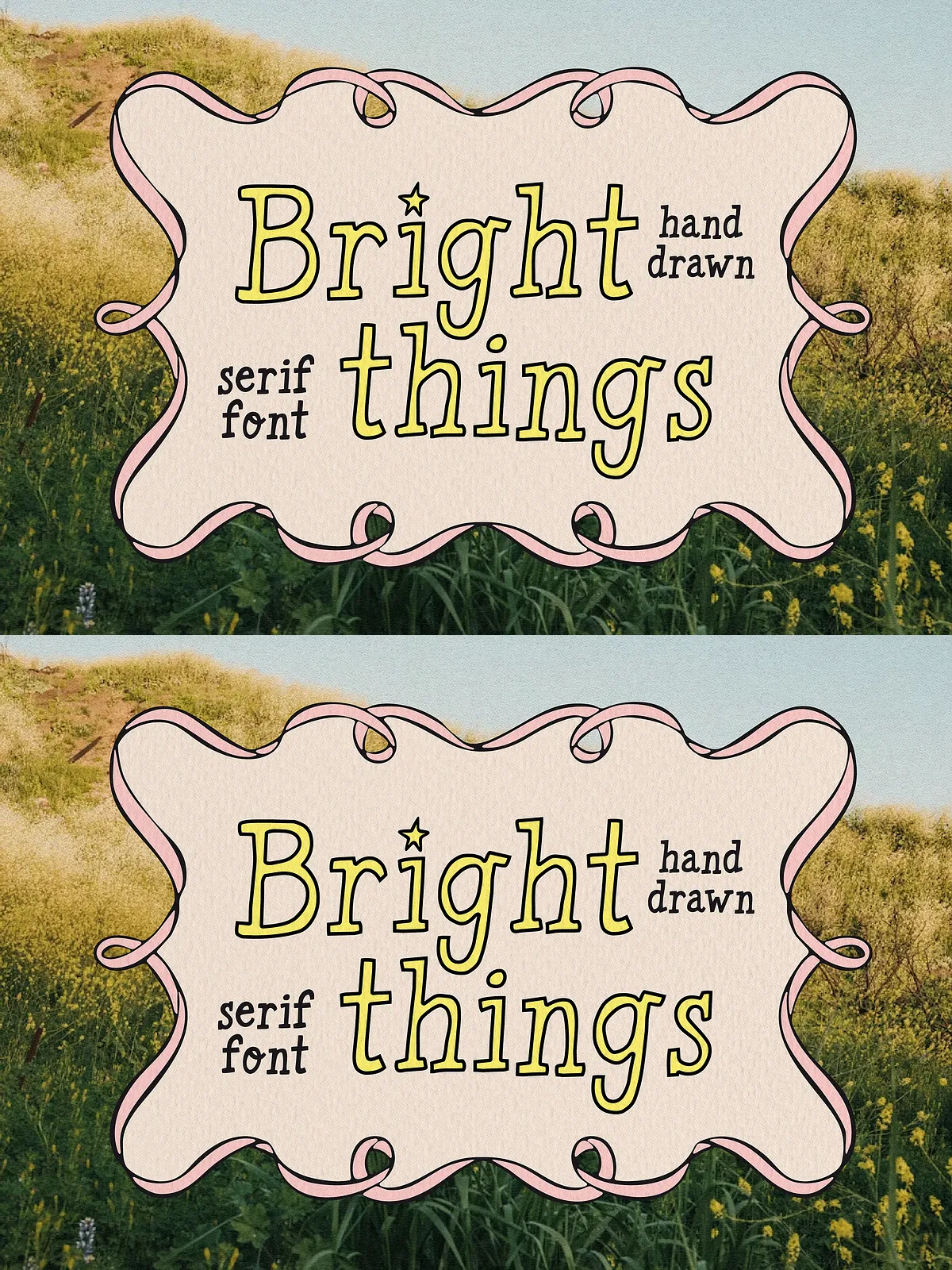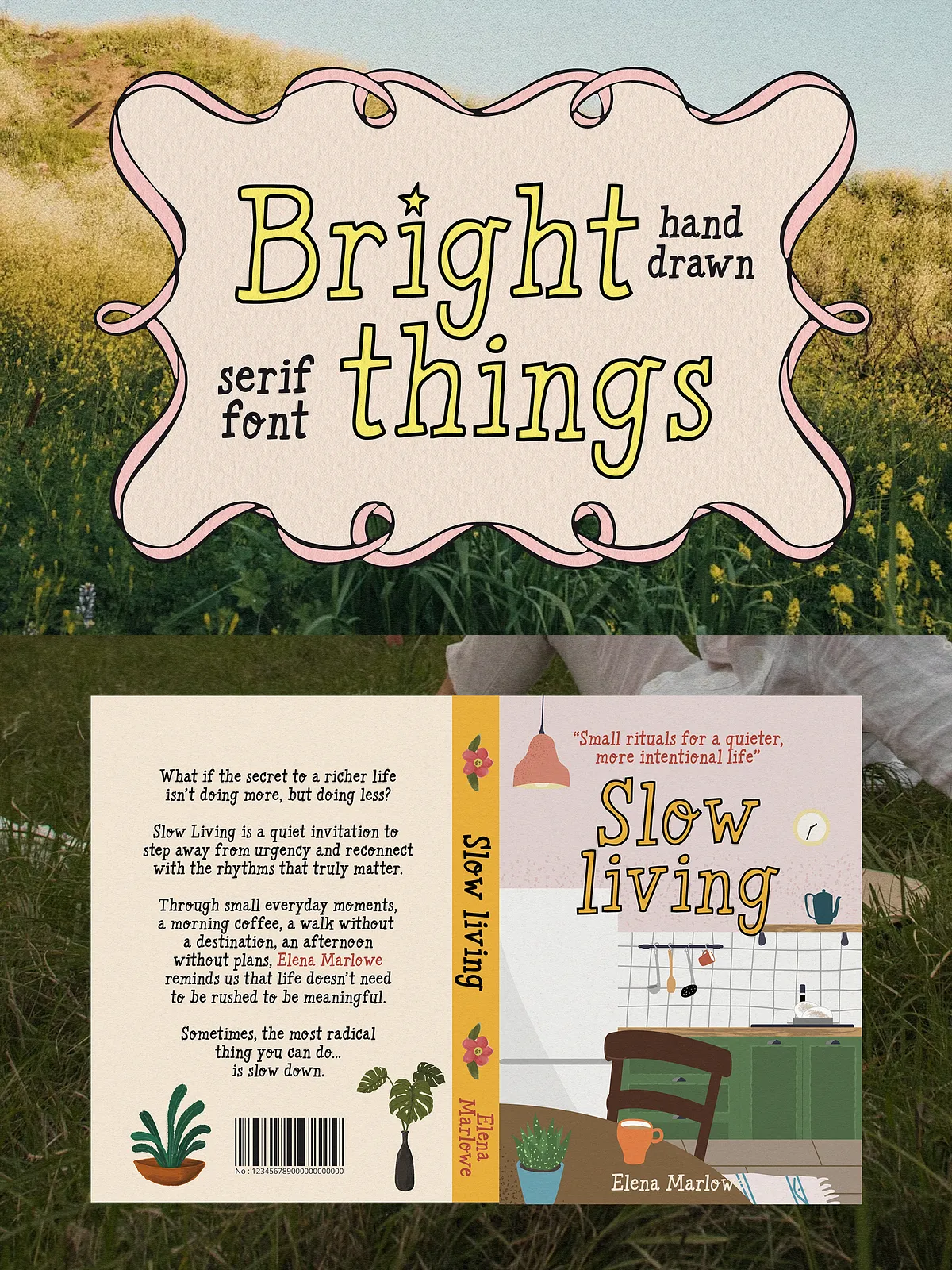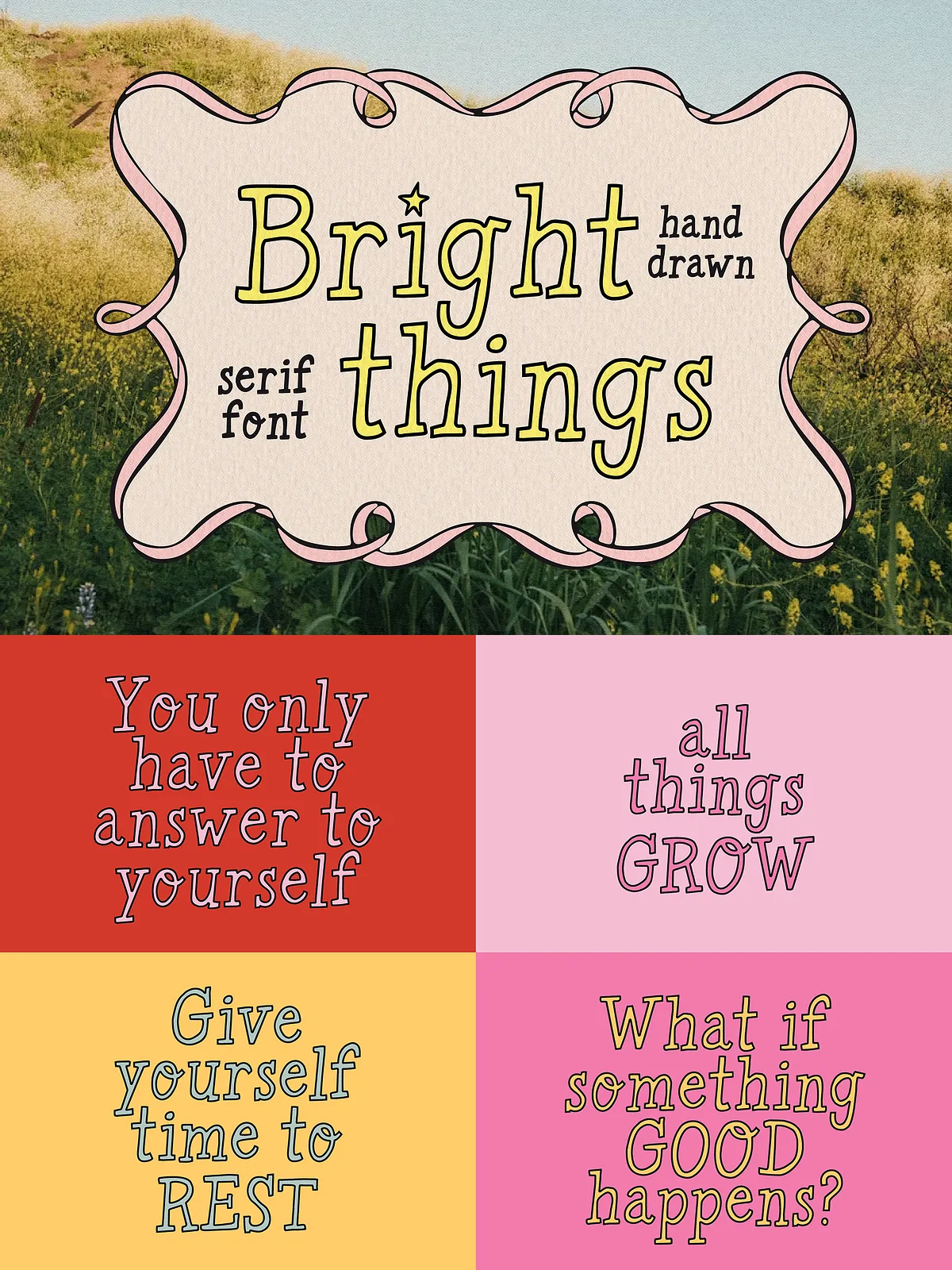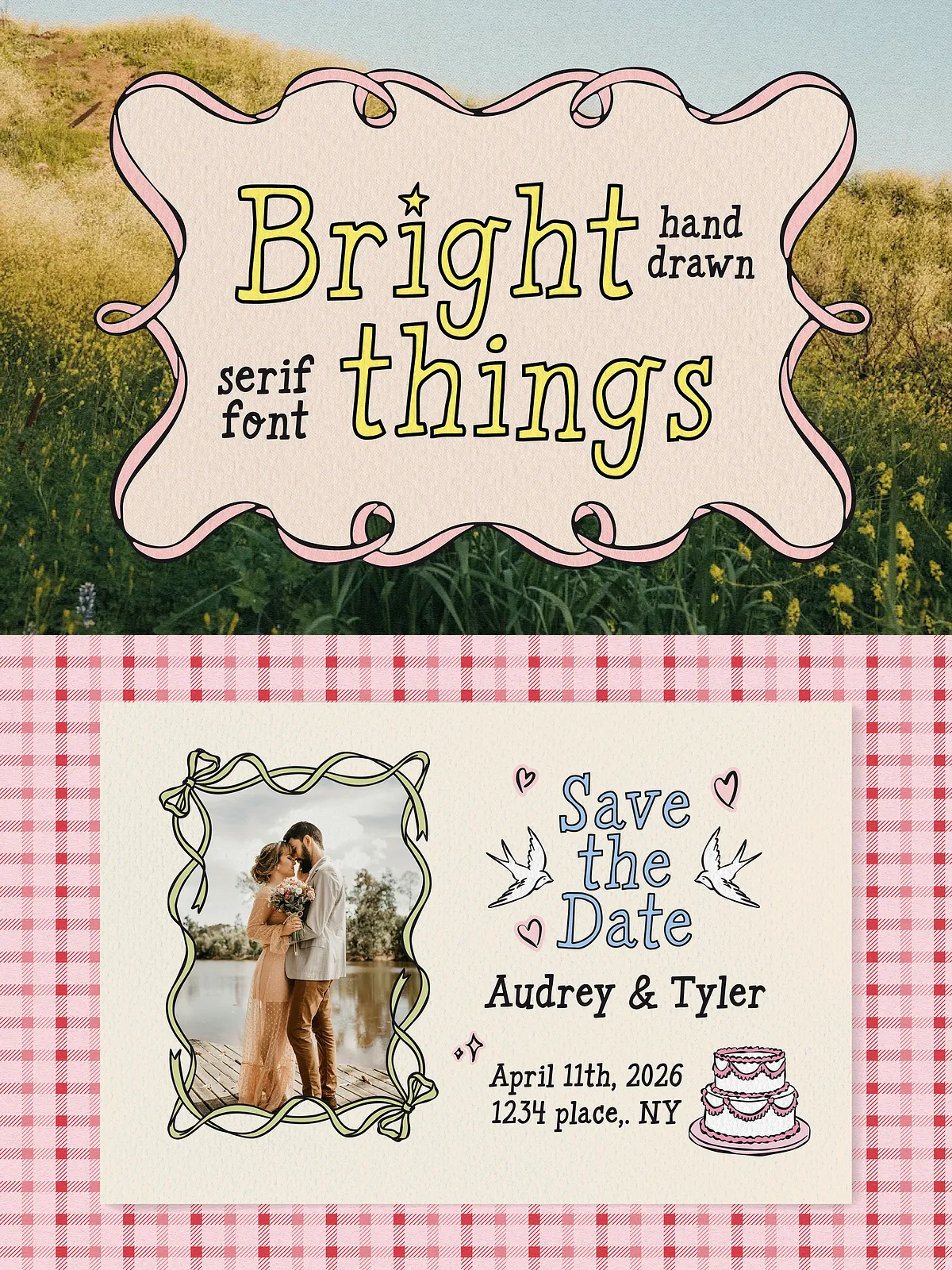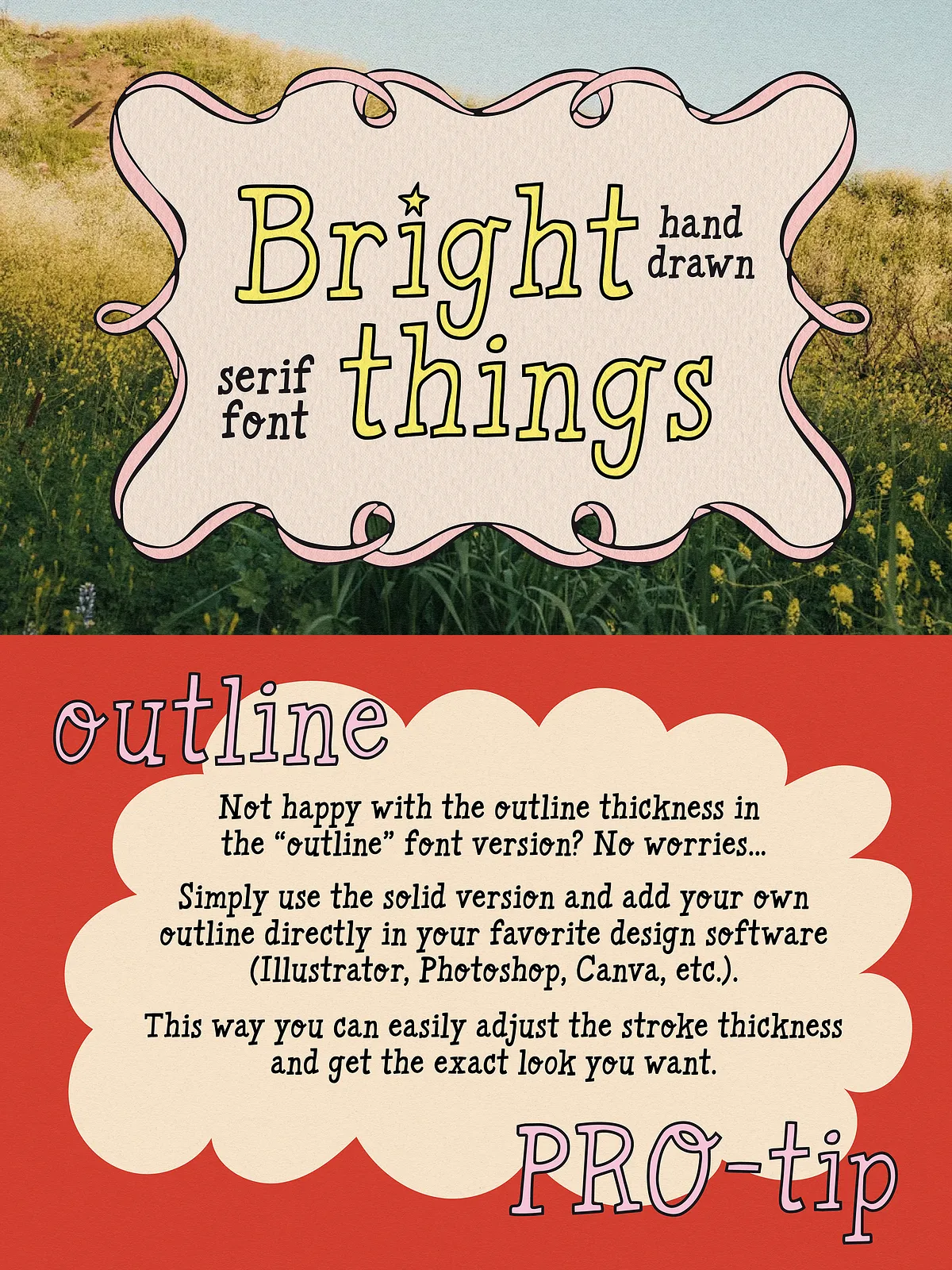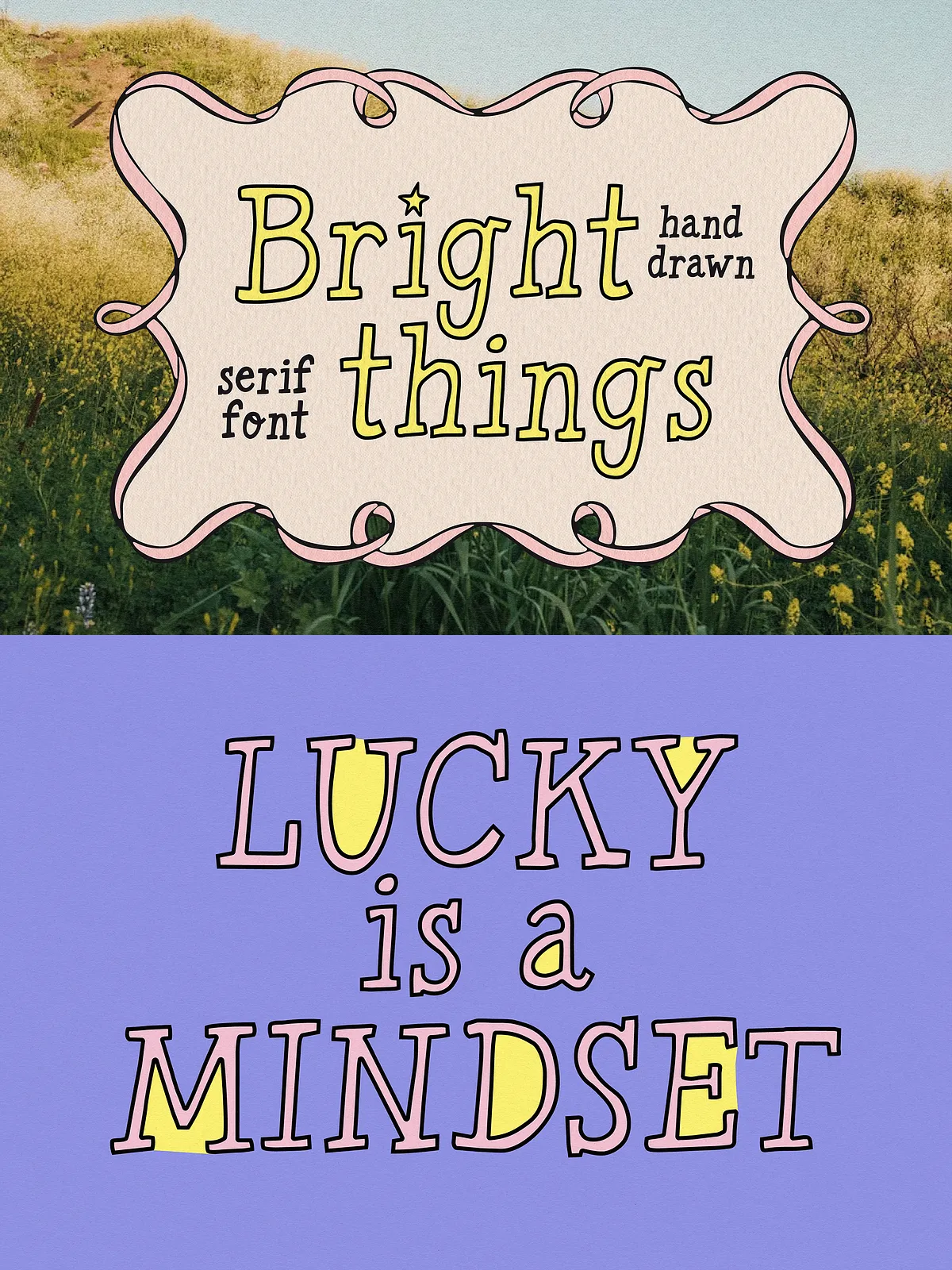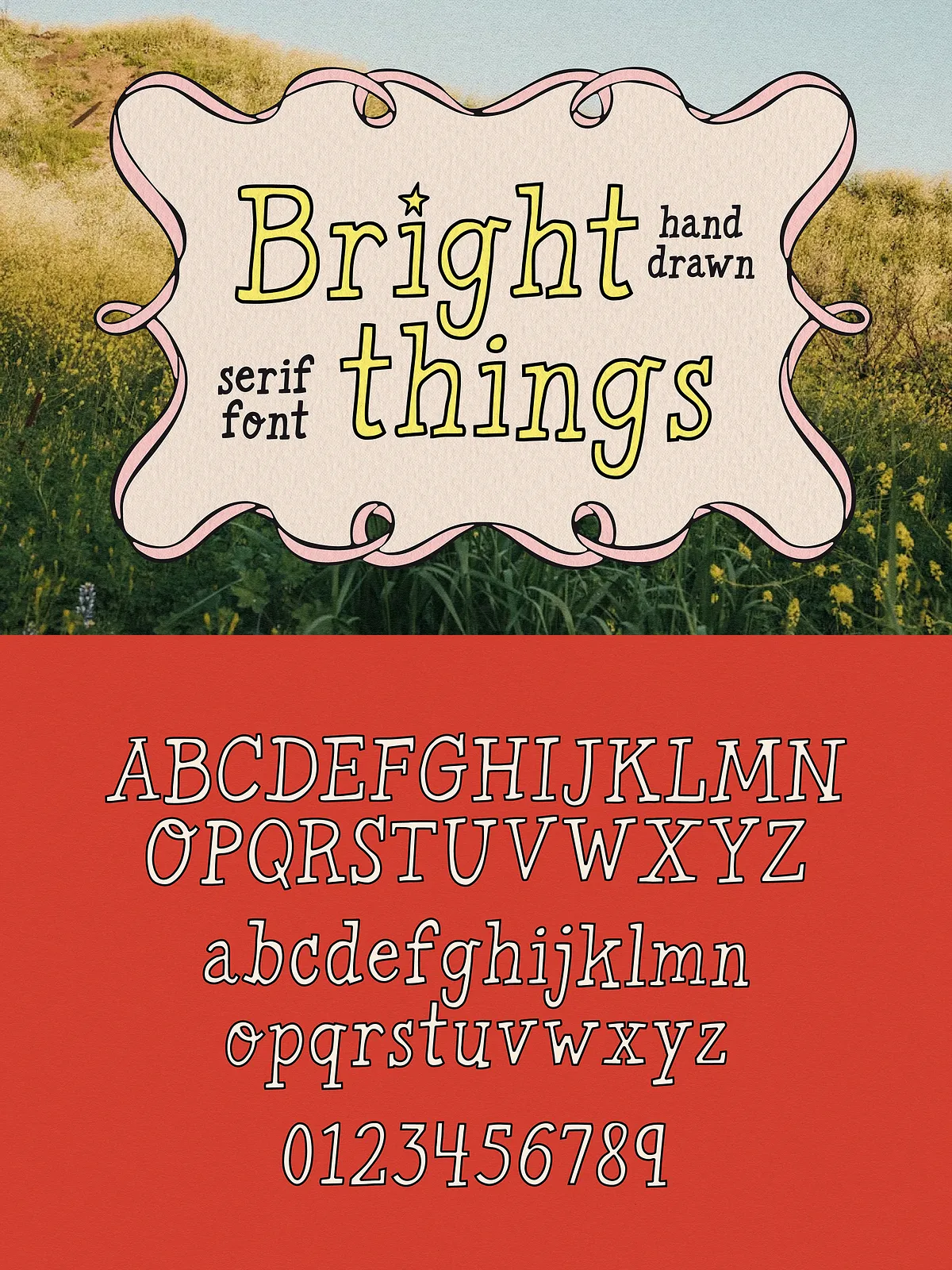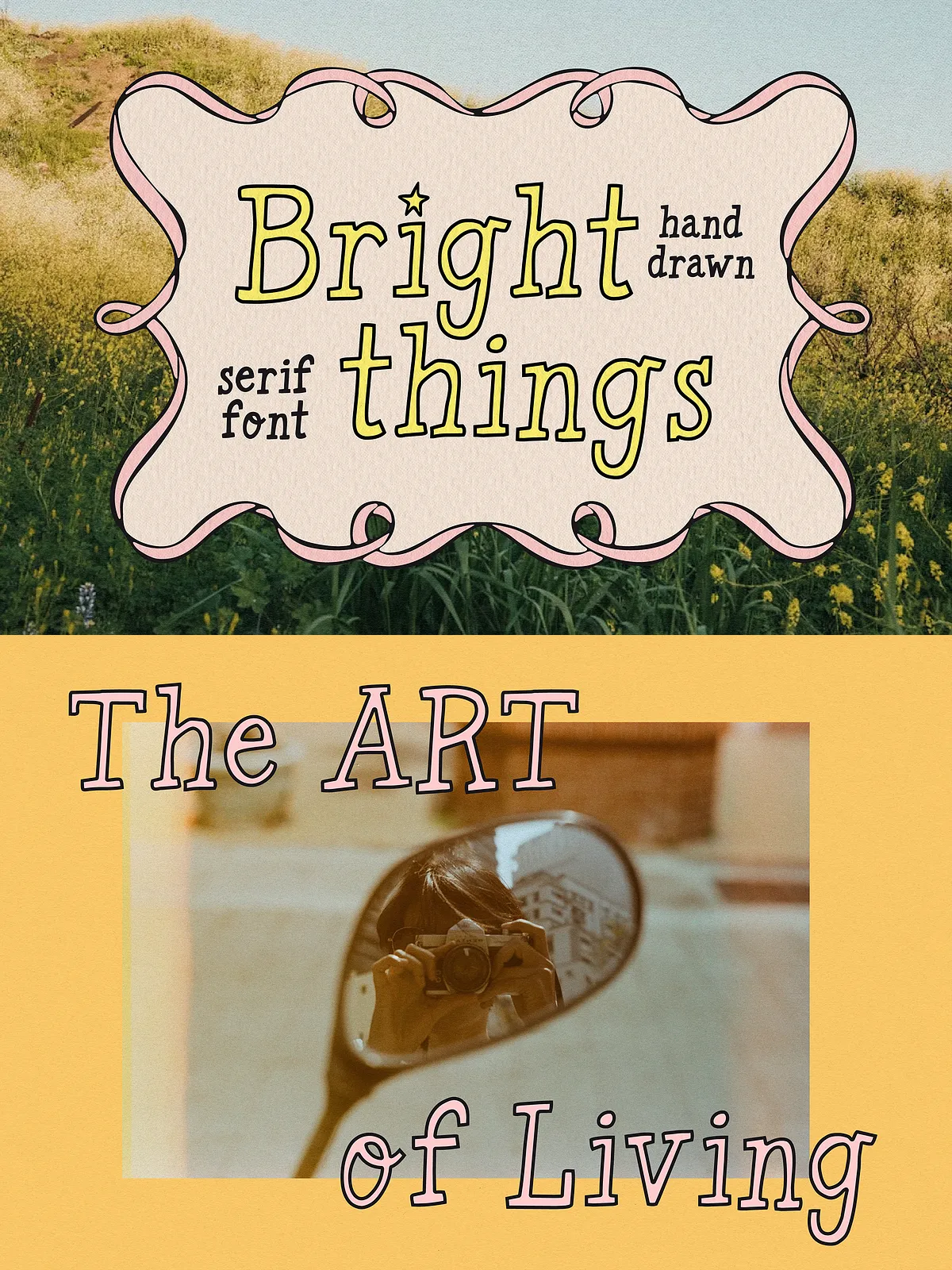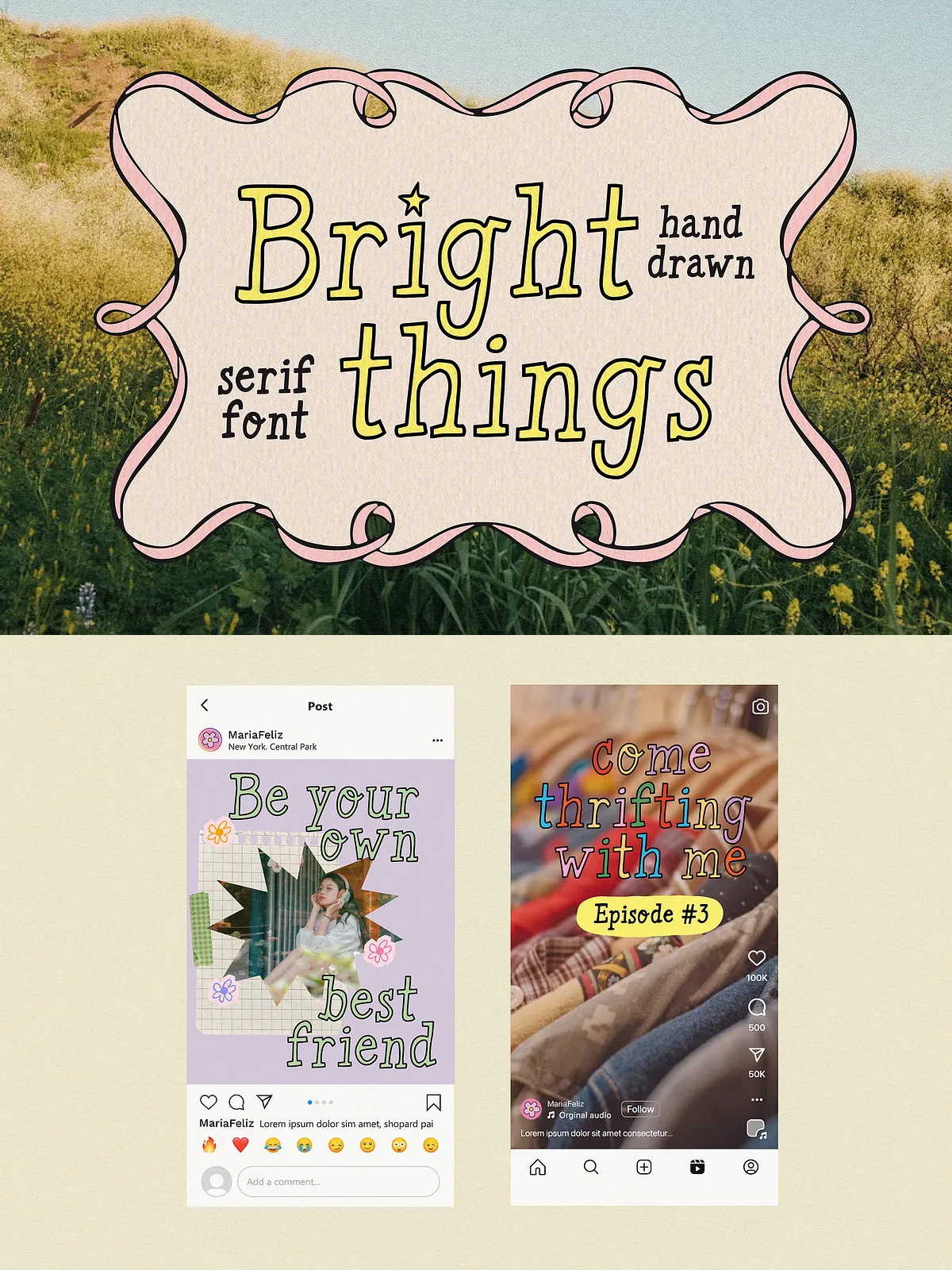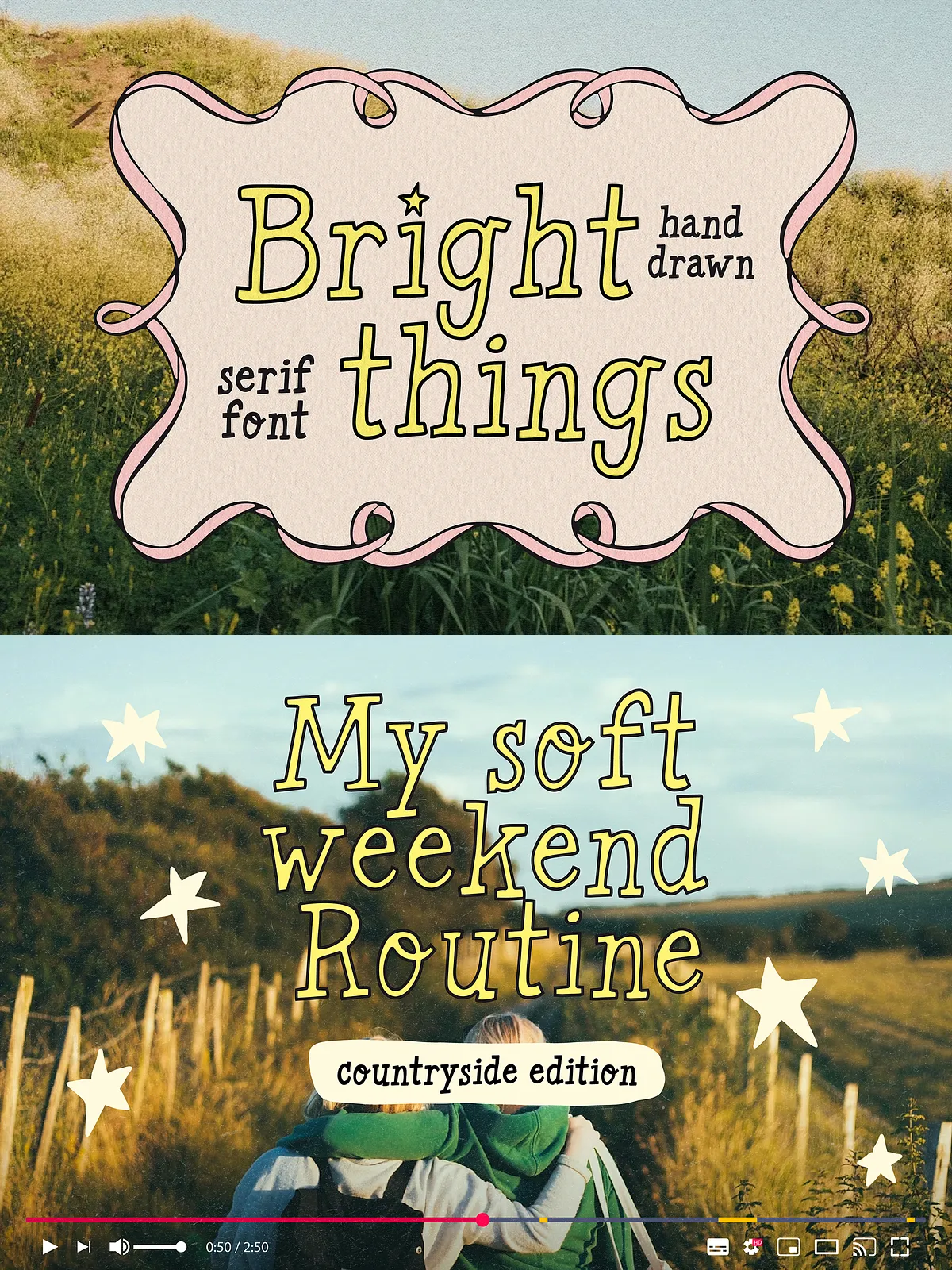
BRIGHT THINGS | FUNKY SERIF FONT
BRIGHT THINGS is a funky serif font full of personality, designed to bring a playful, imperfect, and organic feel to your projects. With its irregular shapes and hand-drawn charm, this typeface feels casual, expressive, and effortlessly cool.
Use them separately or mix them together to create fun, short phrases with lots of personality and visual impact. Its slightly imperfect and irregular look gives your designs a unique, human touch that feels modern, artistic, and full of character.